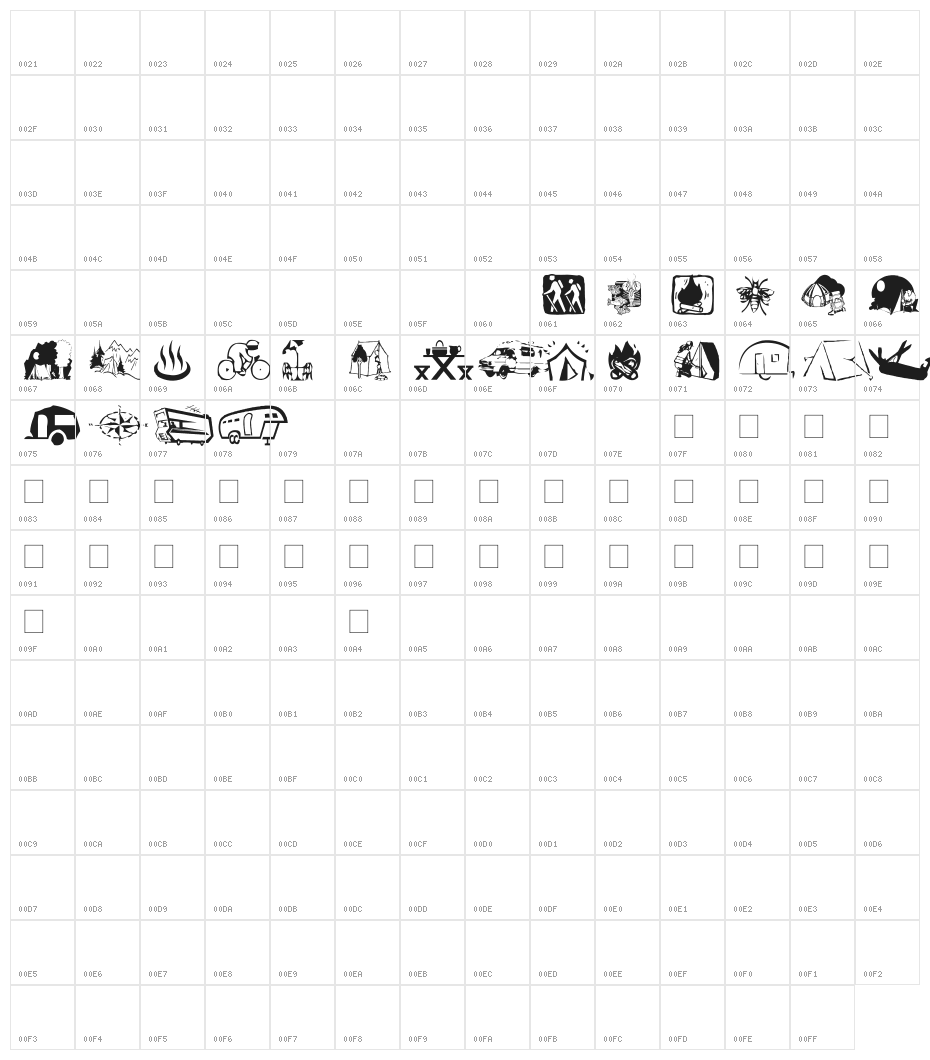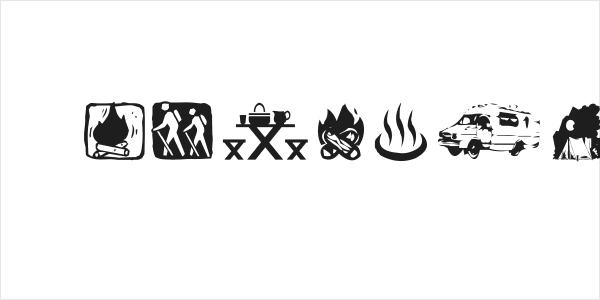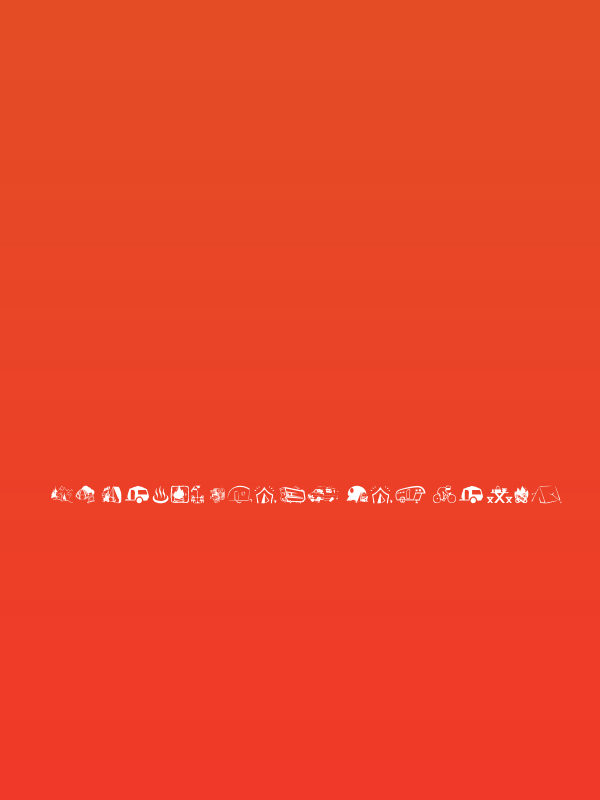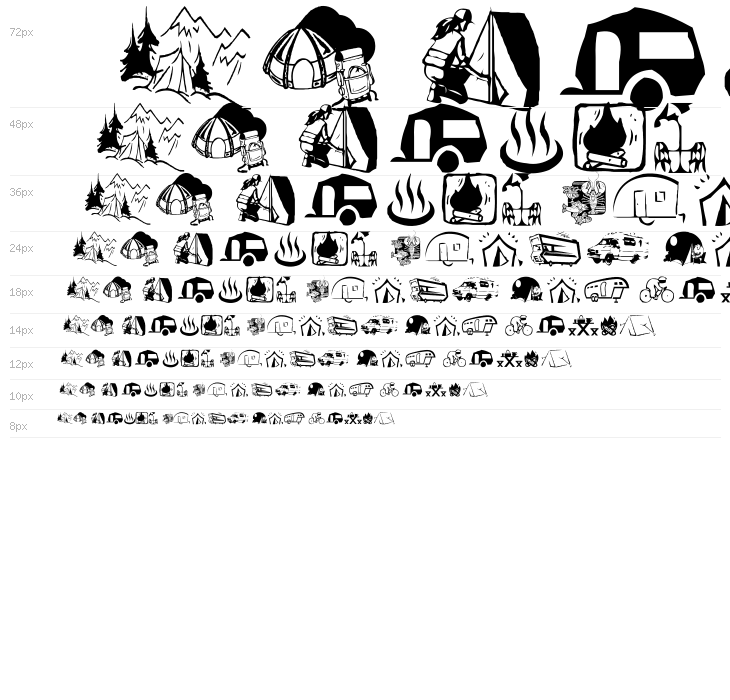
AEZ camping Font
AEZ camping Description
A collection of camping-themed pictograms featuring outdoor activities, wildlife, tents, campers, and related symbols, all rendered in a playful, hand-drawn black and white style.
| Overall Style | Decorative, Playful, Thematic |
| Use Case | Icons, Themed graphics, Decorative elements |
| Proposed Projects | Outdoor event flyers, camping brochures, signage, educational materials, themed websites. |